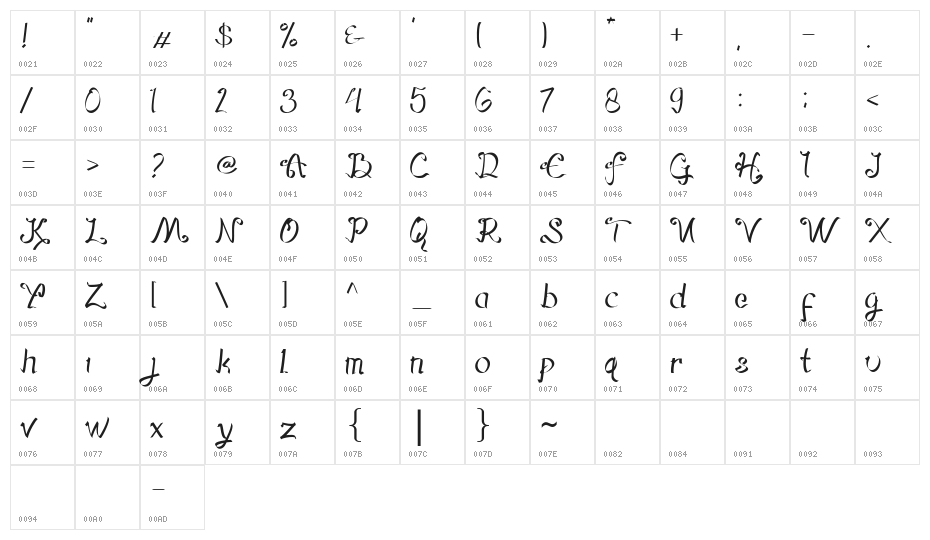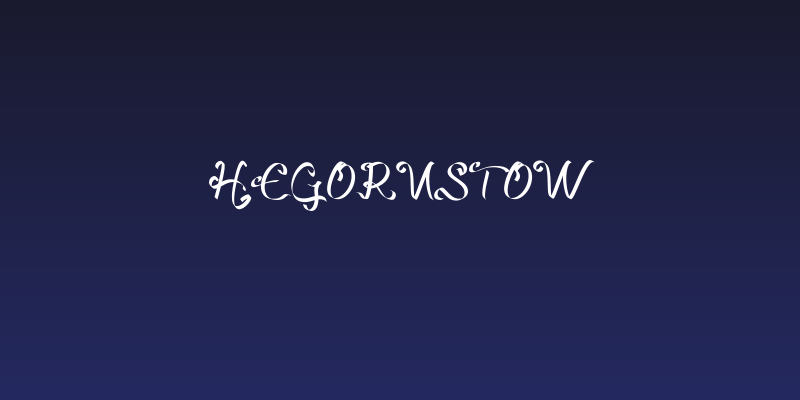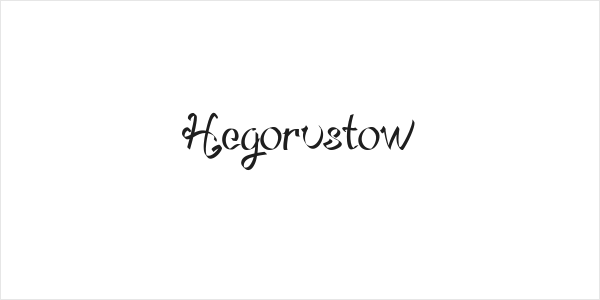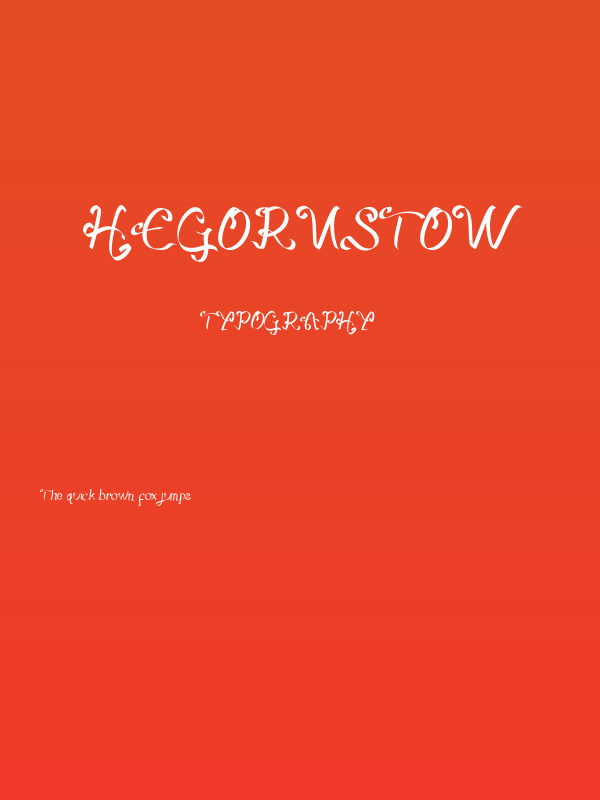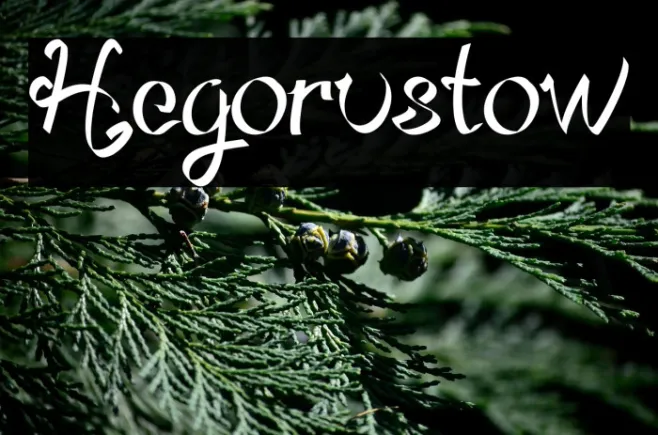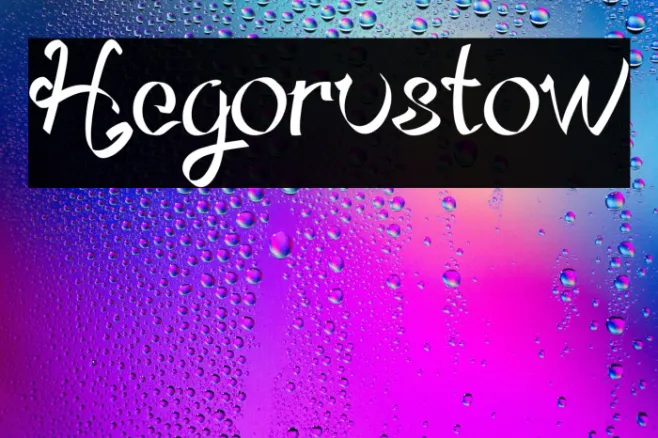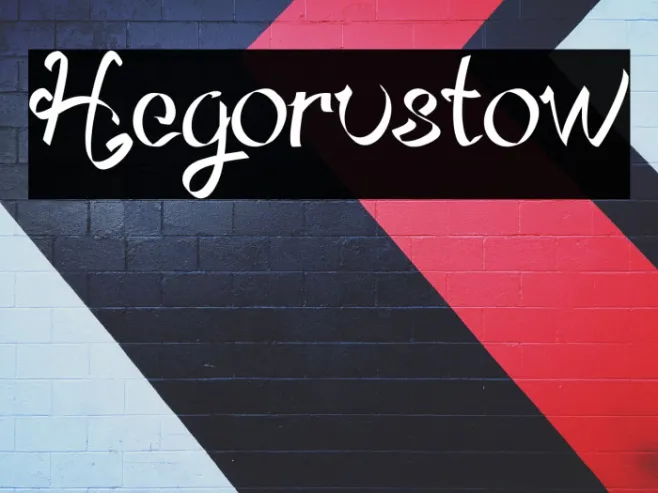
Hegorustow Font
Hegorustow Description
This font features a decorative and artistic style with a calligraphic influence. The uppercase letters are characterized by elegant swirls and flourishes, giving them a sophisticated and ornate appearance. The lowercase letters maintain a consistent flow, with some characters extending below the baseline, adding to the font's dynamic nature. The numerals are bold and slightly angular, complementing the overall aesthetic. Special characters are uniquely styled, with creative embellishments that enhance the font's decorative appeal. This font is ideal for projects that require a touch of elegance and creativity.